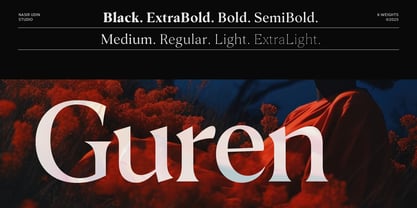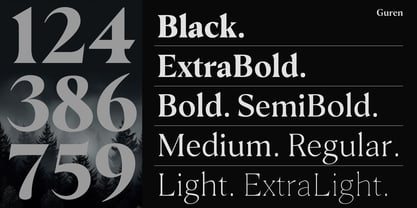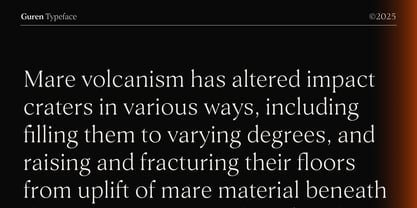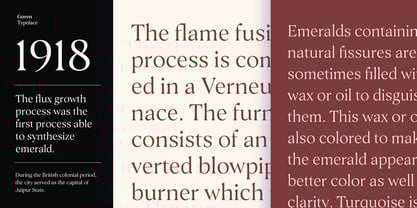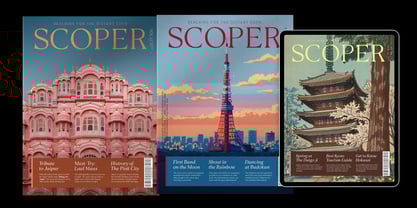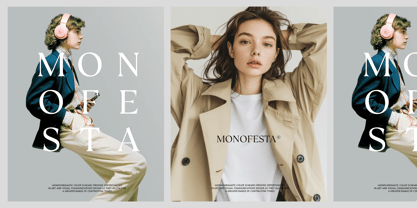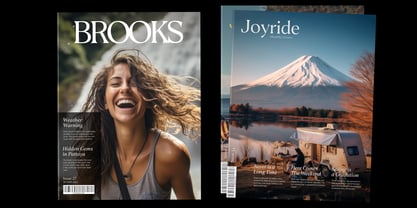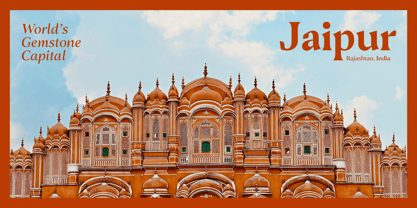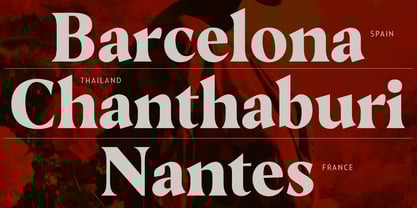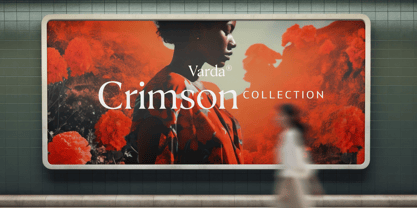
Guren
by Nasir Udin
The Guren Font Family was designed by Nasir Udin and published by Nasir Udin. Guren contains 16 styles and family package options. More about this family
Guren is a modern flared serif font family inspired by transitional and contemporary typefaces. It has been designed with high-contrast stem ratio to give an elegant touch, and high x-height to give sentences more legibility.
Guren has 16 styles in 8 weights with its matching italics. Ranging from ExtraLight to Black, Guren offers many possibilities to be applied in many graphic or editorial projects. Also thanks to the extended latin characters set so that Guren supports 200+ latin-based languages. Guren is a great choice for headline, branding, titles, or short paragraphs.
About Nasir Udin
Before he got into type design, he had designed travel posters under the Vectro label. His illustrative style is an impression of similar posters from the mid 20th century. As a designer, he enjoy looking to both the past and the future for inspiration. That's why he love to blend a retro style with a futuristic concept. He started type design on 2016 as his side project, before he take it seriously. You can follow @studio.nasir on Instagram, he loves to capture a lettering on old buildings (Dutch, Chinese, Arabic, blend with the local Javanese).